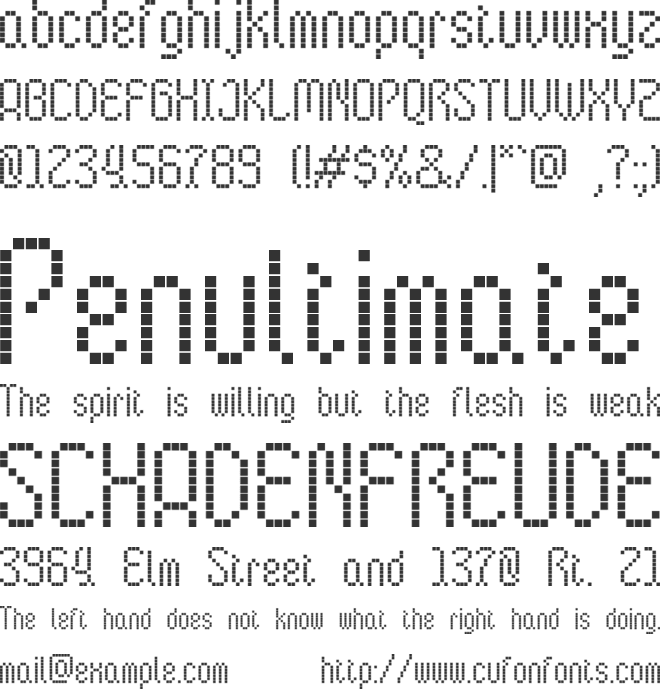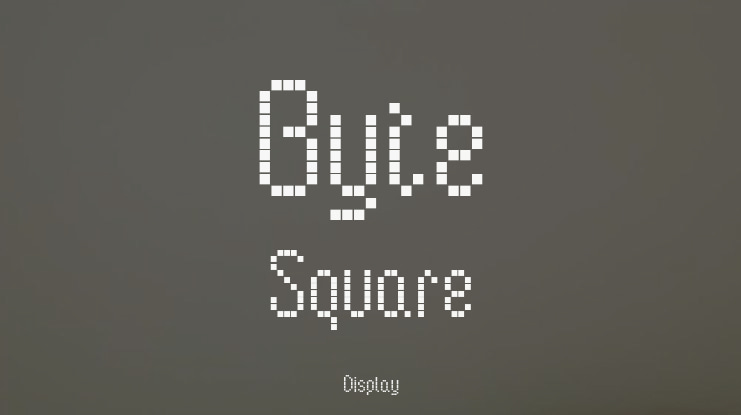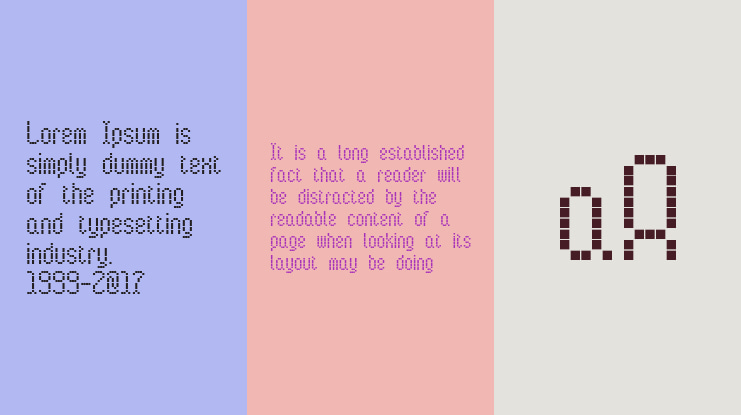
Byte Square Font Family
Byte Square captures the essence of digital minimalism with its precise
grid-based construction and pixel-block letterforms, echoing classic 8-bit
displays and early computer typography.